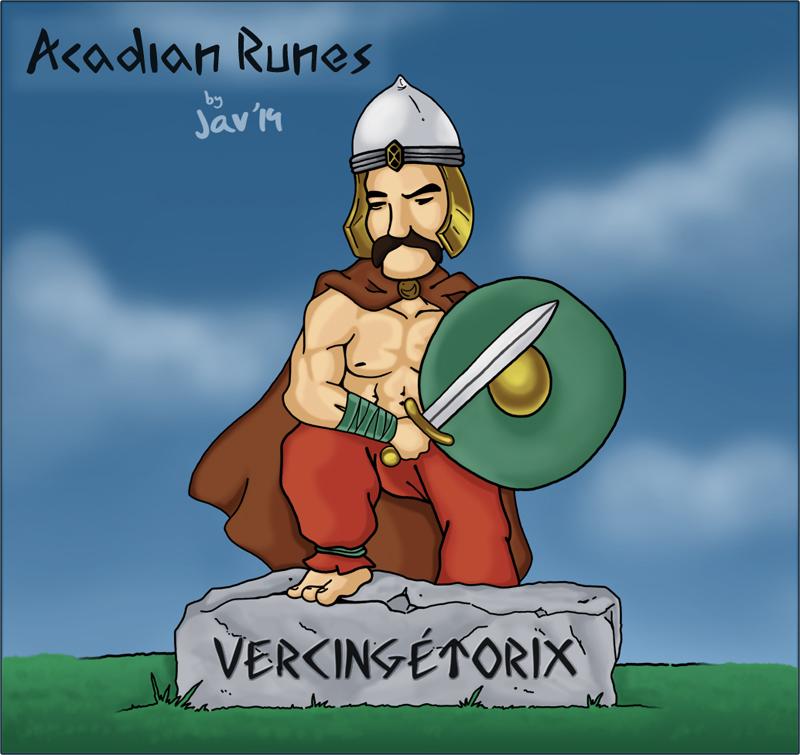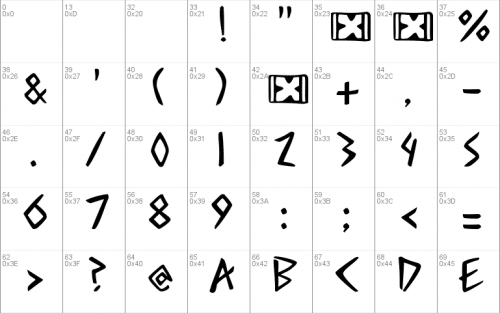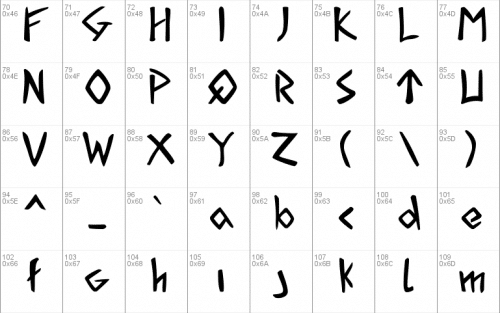
Acadian Runes Font is a font that reminds a runic alphabet, very useful if you want to write as a druid, a dwarf or something like that… Enjoy!
- Designer: Javier Ugarte